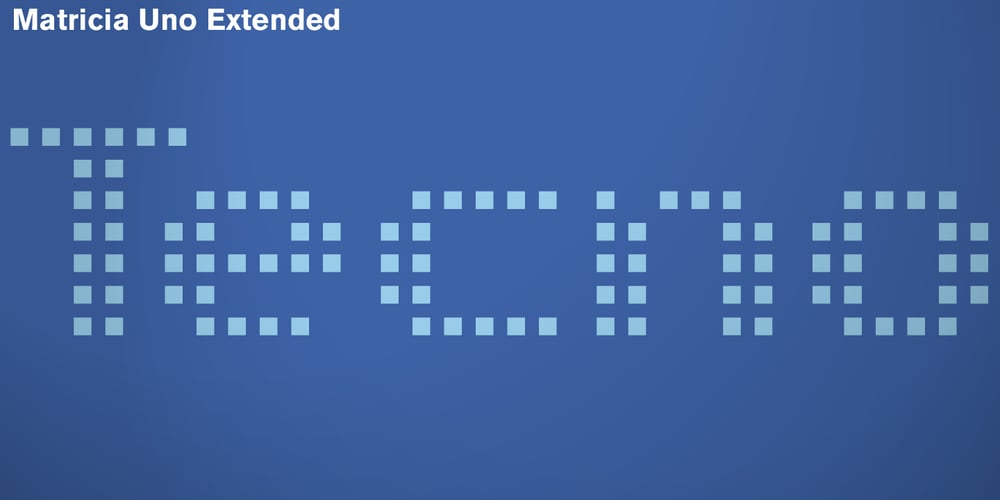
Matricia Font Family was designed by José Manuel Urós, Pera Ribalta and published by Type-Ø-Tones. Matricia contains 3 styles and family package options. Matricia by Pera Ribalta, José Manuel Urós / OpenType, 3 styles Nostalgically, the three weights of Matricia try not to recreate the modern pixel fonts but the noisy needle printers. The Uno and UnoXt are made of squares and the Dos version of dots.